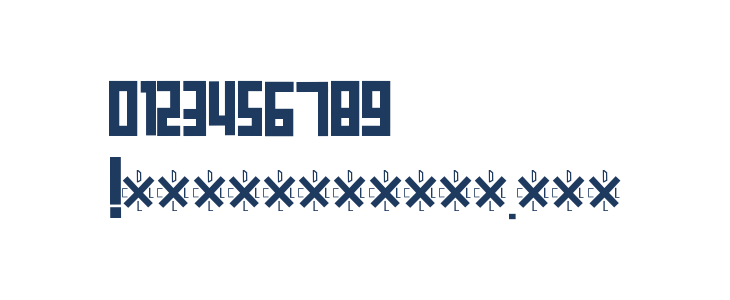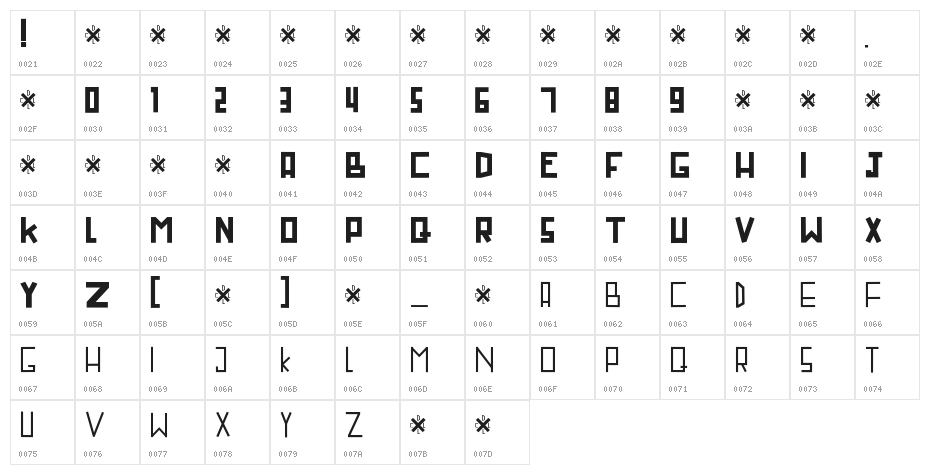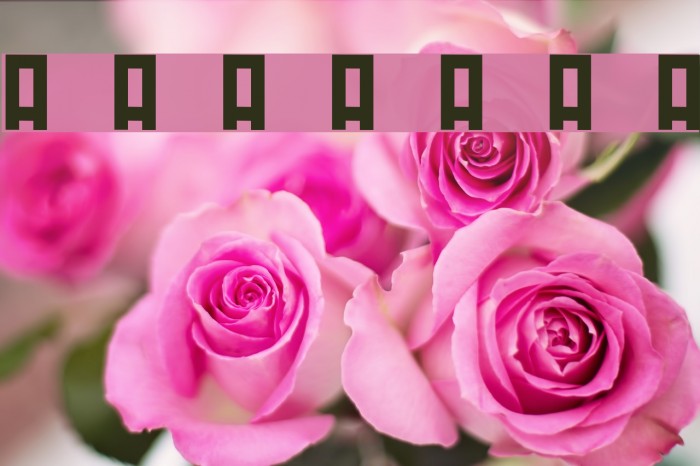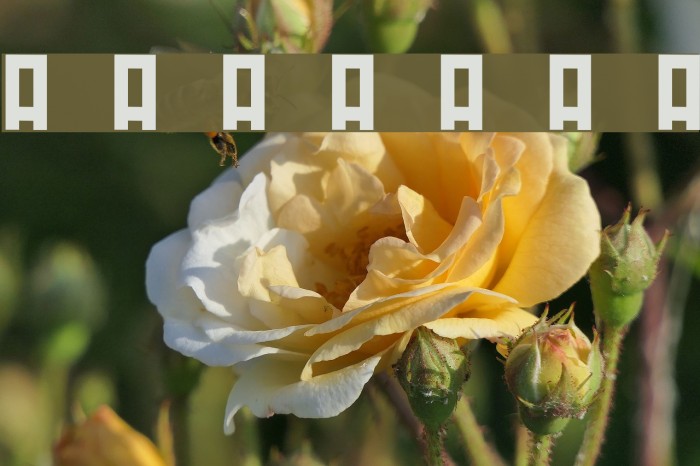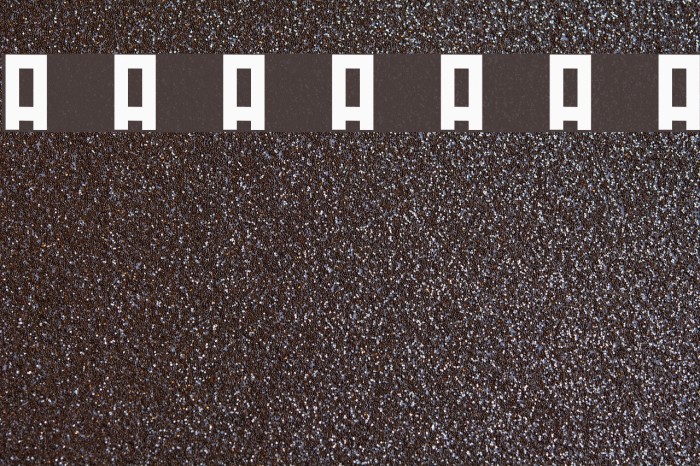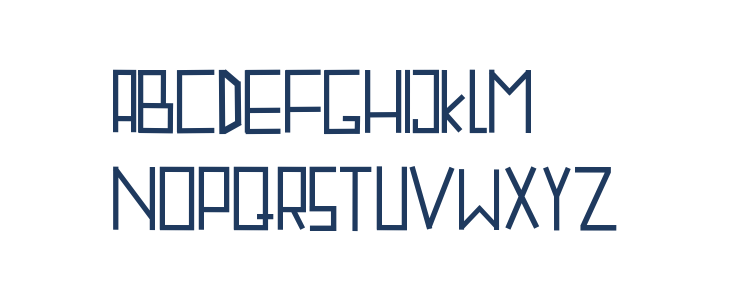
MINIRUS Font
MINIRUS Description
This font features a highly geometric and structured design, characterized by its uniformity and repetition of a single letterform. The letter 'A' is repeated in a grid-like pattern, emphasizing its bold, blocky appearance. The design is minimalistic, with sharp angles and a strong presence, making it suitable for modern and contemporary applications. The consistent repetition creates a sense of rhythm and order, which can be visually striking in various design contexts.
Use CaseLogos, Posters, Art Installations
Proposed ProjectsIdeal for modern art installations, branding projects, or any design requiring a strong, repetitive visual element.